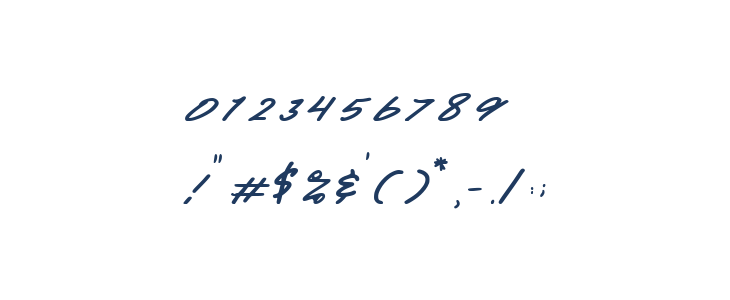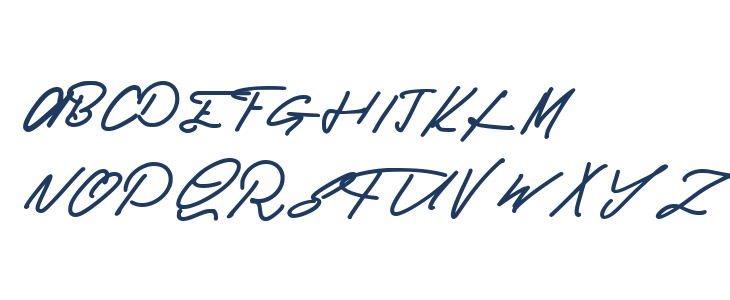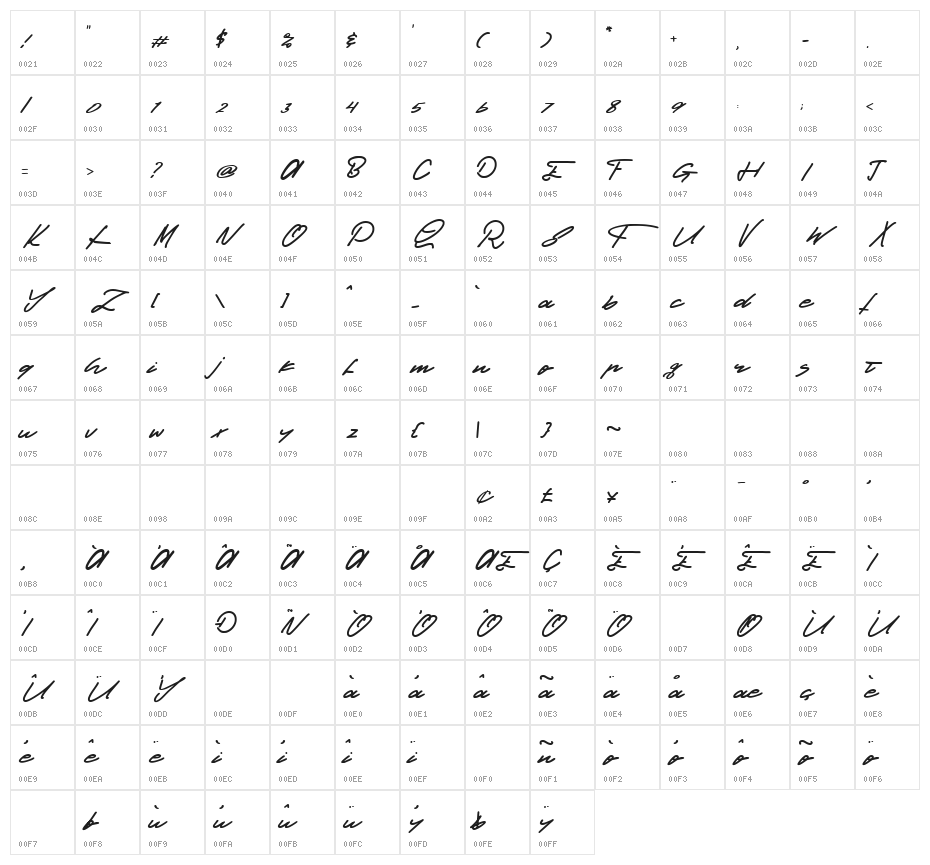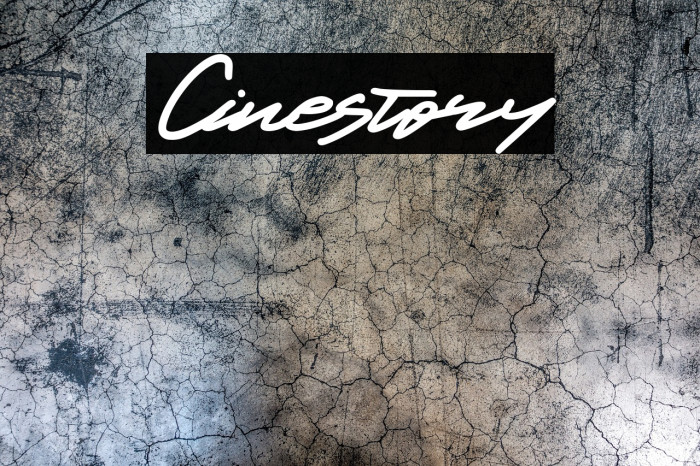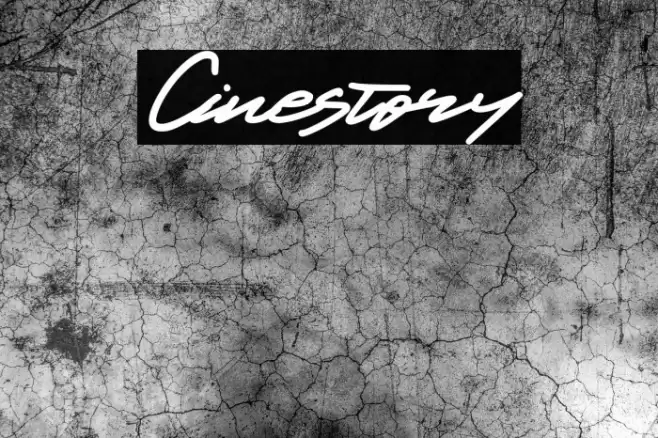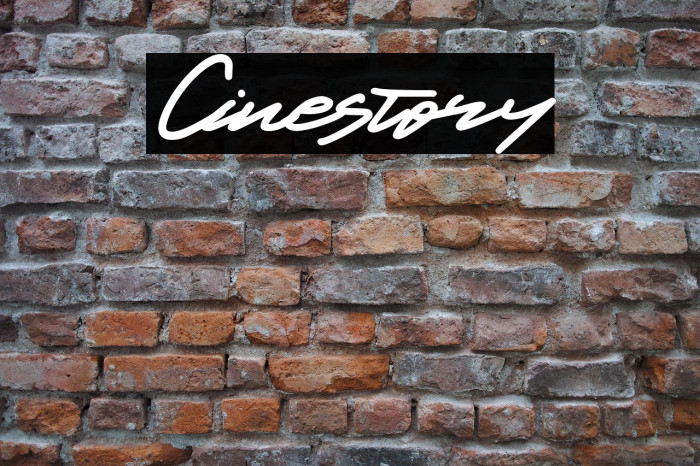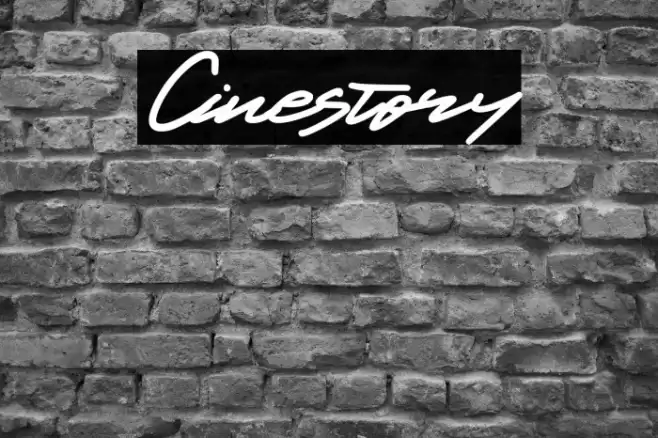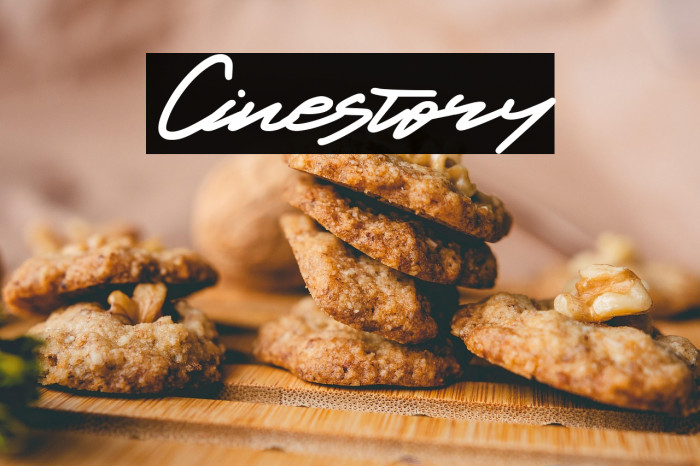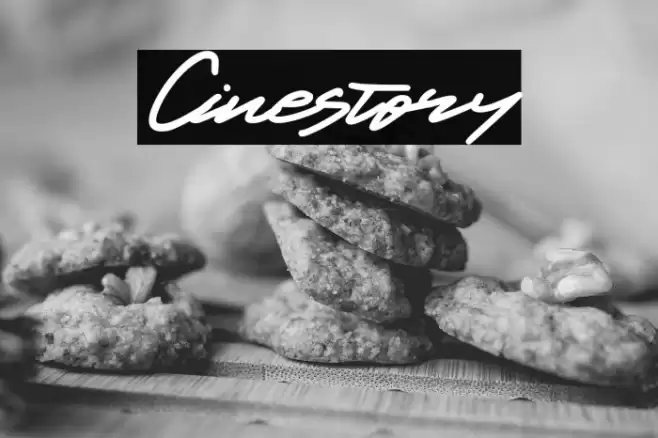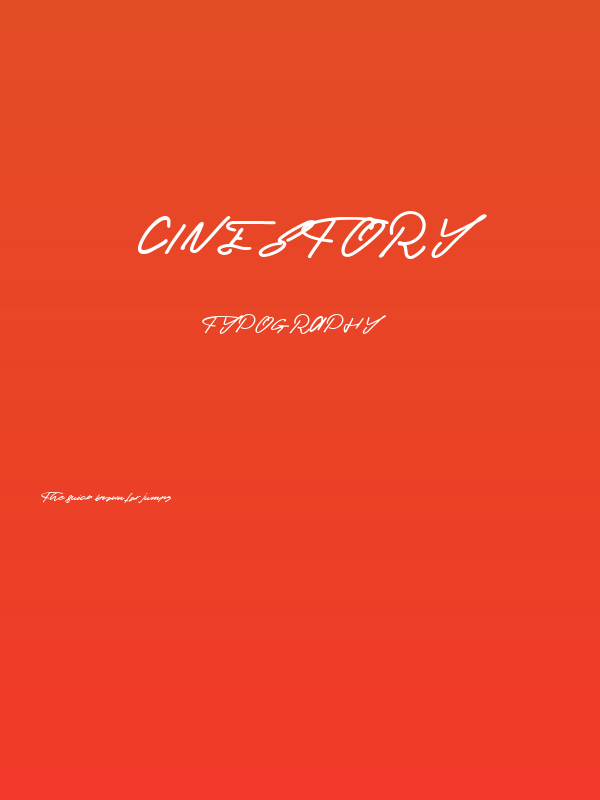
Cinestory Font
Cinestory Description
A cursive, handwritten style font with a smooth, flowing appearance, featuring both uppercase and lowercase letters, numbers, and common punctuation.
| Overall Style | Elegant, Casual, Handwritten |
| Use Case | Invitations, Greeting Cards, Logos, Personal Projects |